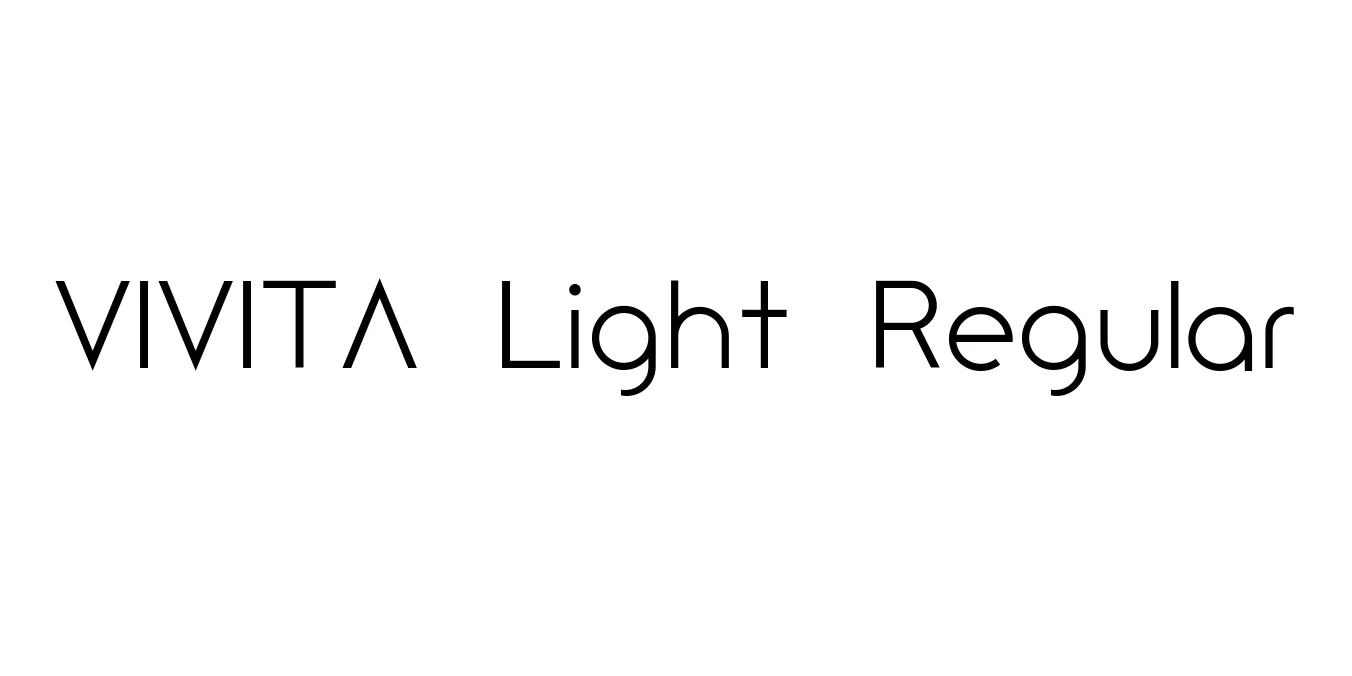
VIVITA Light Regular
Designed by Oleg Bondar
| Designer | Oleg Bondar |
VIVITA Light Regular is a sleek and modern geometric sans-serif typeface designed by Oleg Bondar. Characterized by its clean lines and minimalist aesthetic, this font captures the essence of contemporary typography. The Light weight specifically offers a delicate yet legible presence, making it ideal for high-end branding projects that require a touch of sophistication and professional clarity.
The design of VIVITA draws inspiration from classic geometric principles while incorporating subtle modern nuances that improve readability in digital environments. Its balanced proportions and open counters allow it to perform exceptionally well in both display settings and body text. Whether used in web design, editorial layouts, or minimalist logos, VIVITA Light Regular provides a polished and airy finish to any creative project.
VIVITA Light Regular Best Uses
Perfect for creating sophisticated logos and high-end corporate identities.
Excellent choice for magazine layouts and clean body text in print.
Highly readable and aesthetically pleasing for modern UI and headers.
Adds a premium and spacious feel to minimalist marketing materials.